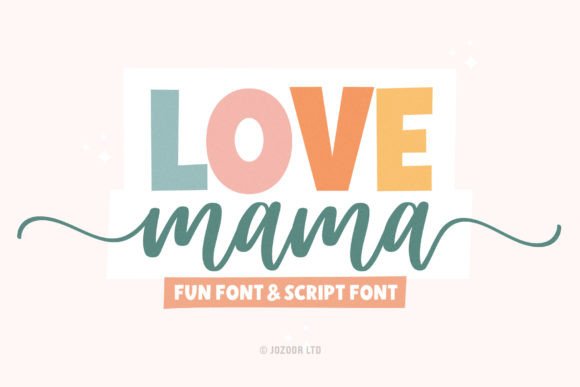
Introducing Love Mama Font, the perfect addition to your design collection! This modern, stylish, and flowing handwritten font duo (script and display) is created by Jozoor and is available for free personal use or as a demo. With its beautiful and well-balanced characters, Love Mama is a versatile font that matches a wide pool of designs.
Love Mama is not just a font, it is a tool that will elevate your design projects. The script font adds a personal touch to any project, making it the best choice for creating eye-catching logos, branding, and quotes. The display font, on the other hand, is perfect for making a bold statement on your designs.
One of the standout features of Love Mama is its amazing glyphs and ligatures, which are easily accessible thanks to its PUA encoding. These unique design elements allow you to create one-of-a-kind designs that stand out from the crowd.
This font duo is a must-have for any designer or creative looking to add a touch of elegance and modernity to their work. It's perfect for creating invitations, posters, social media graphics, and so much more. Don't miss out on the opportunity to make your designs come alive with Love Mama Font.